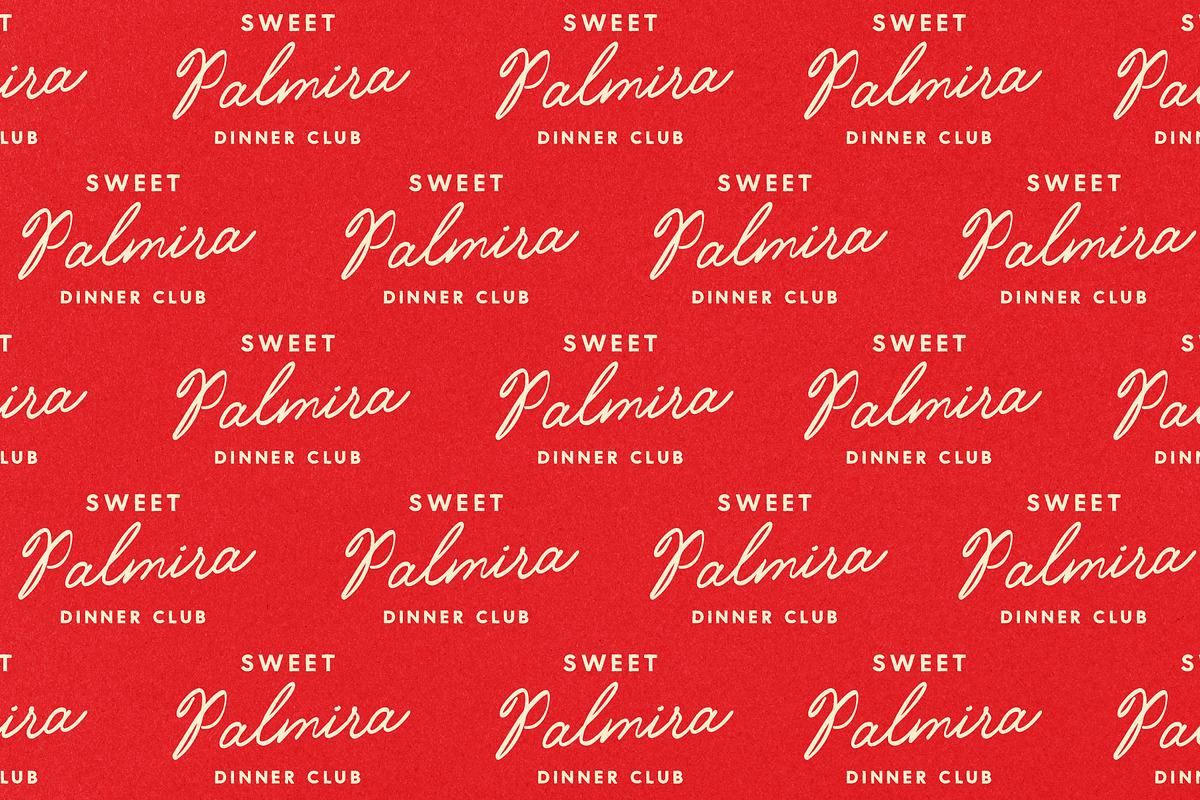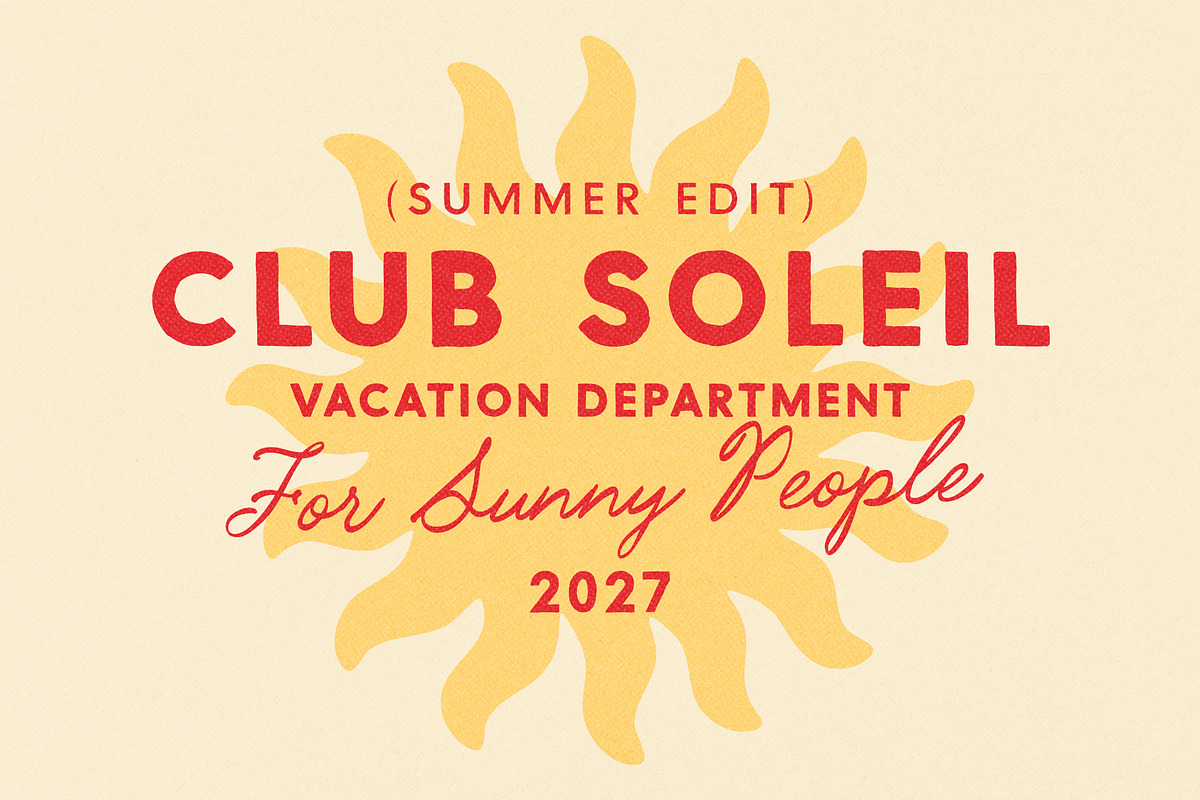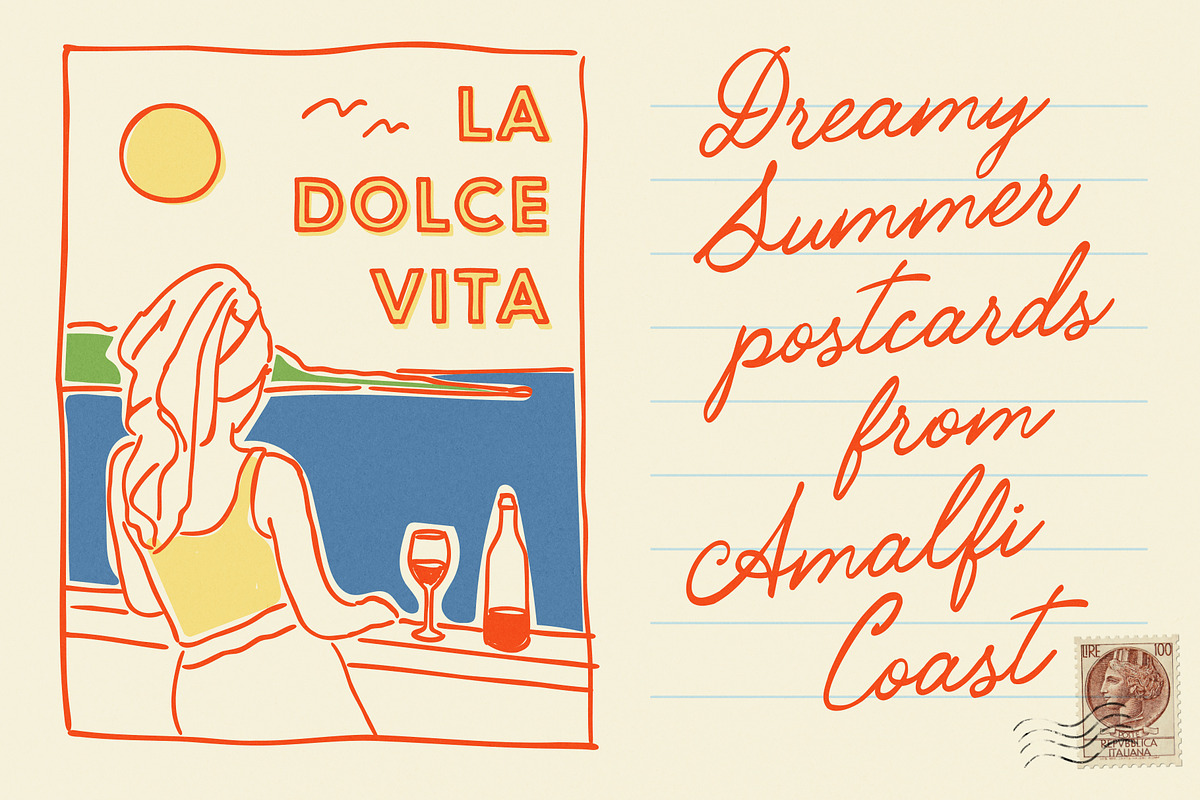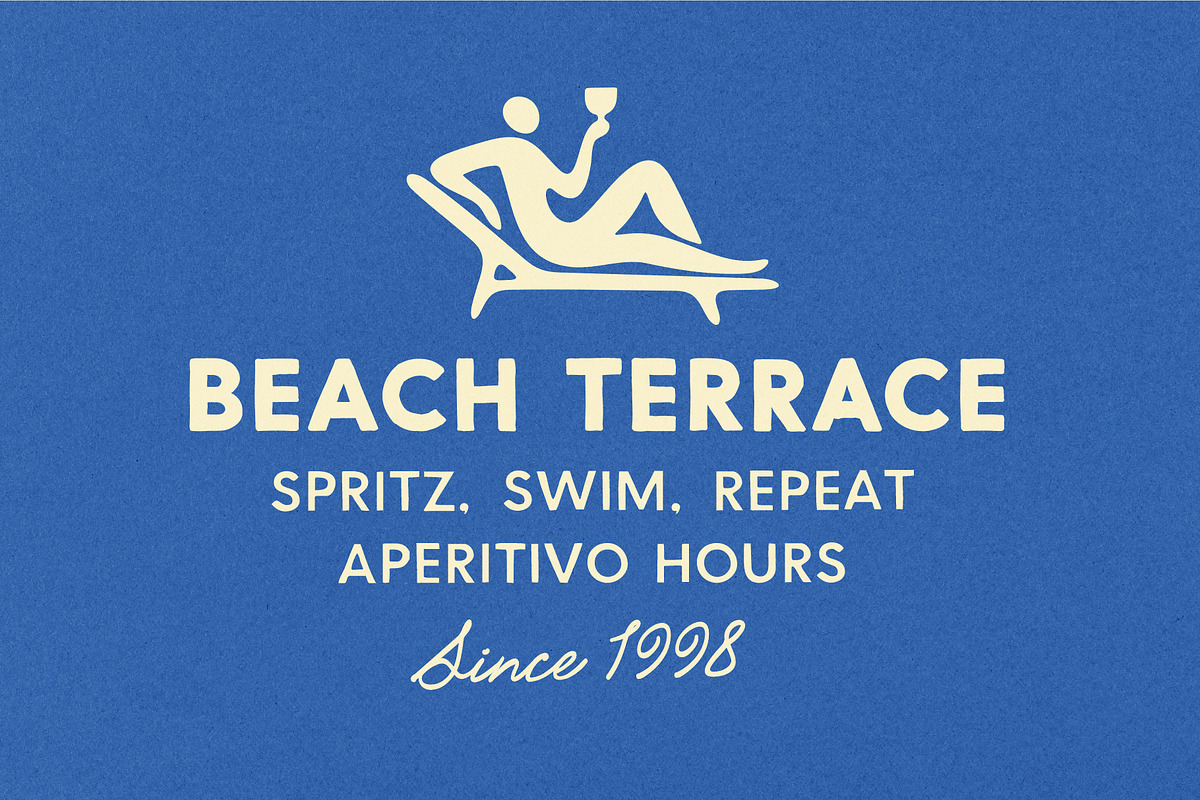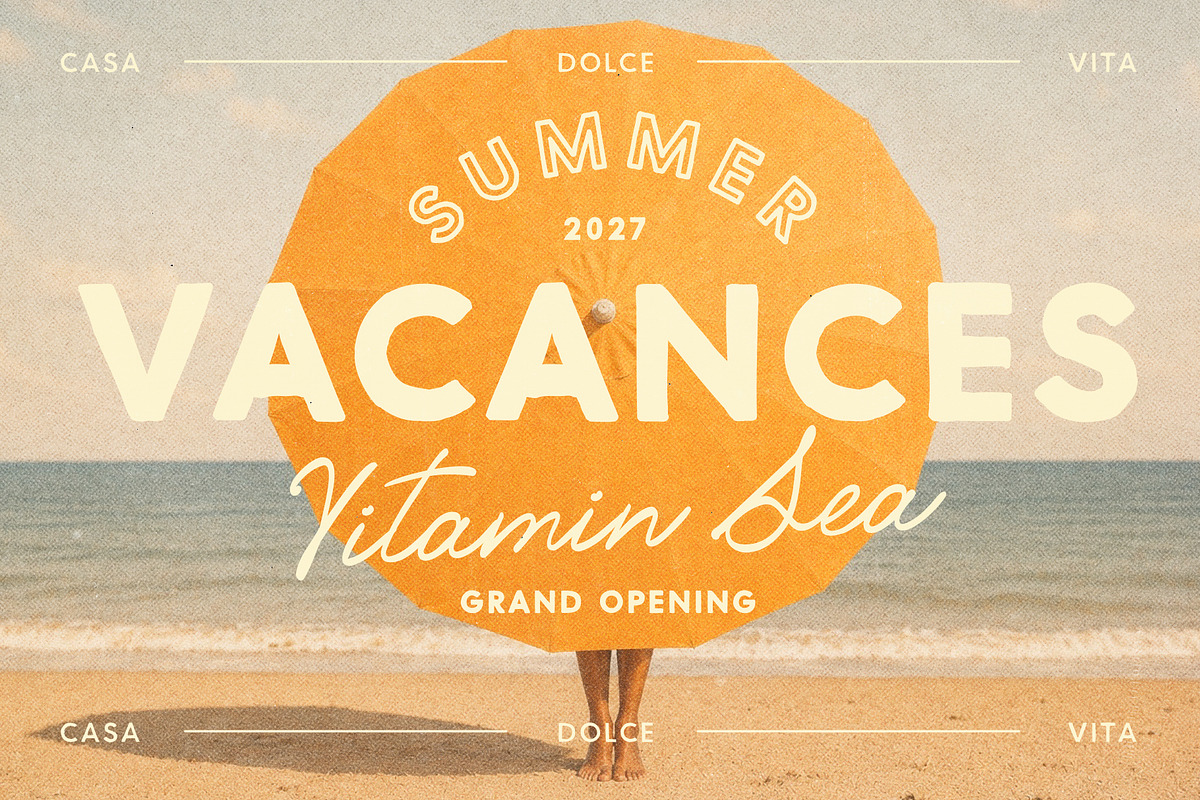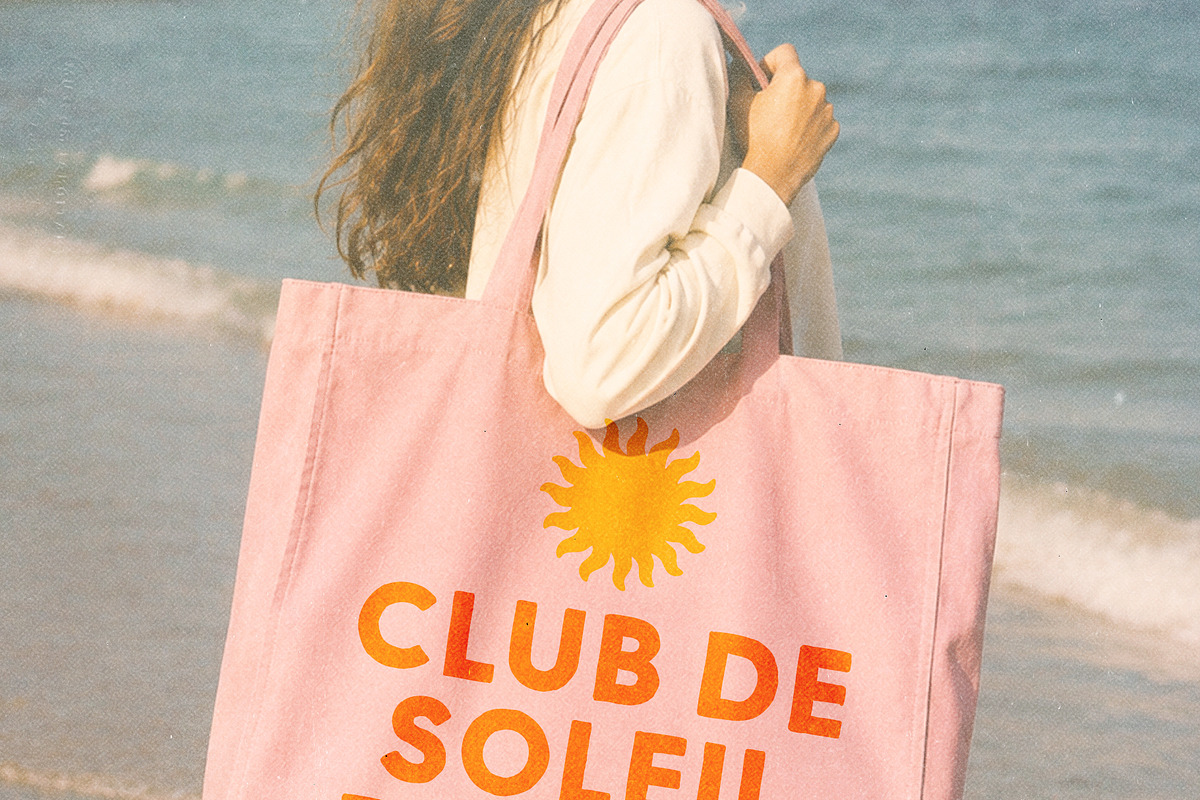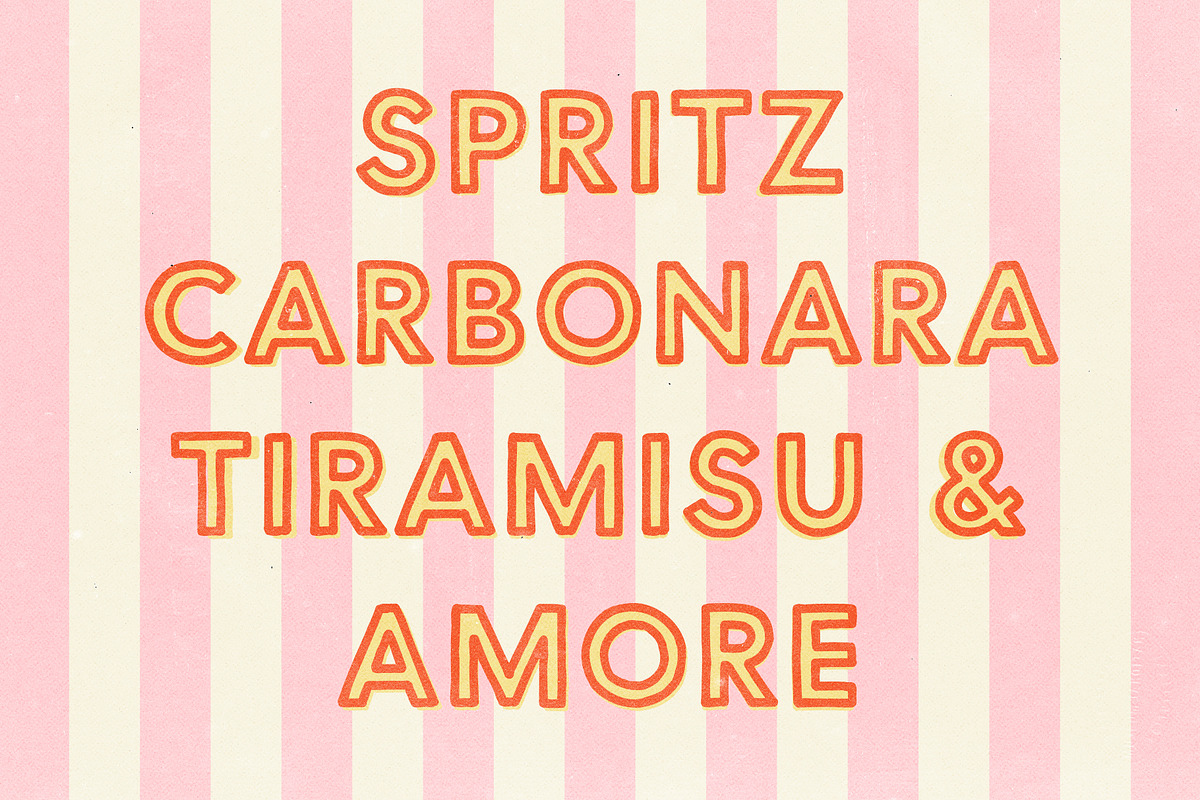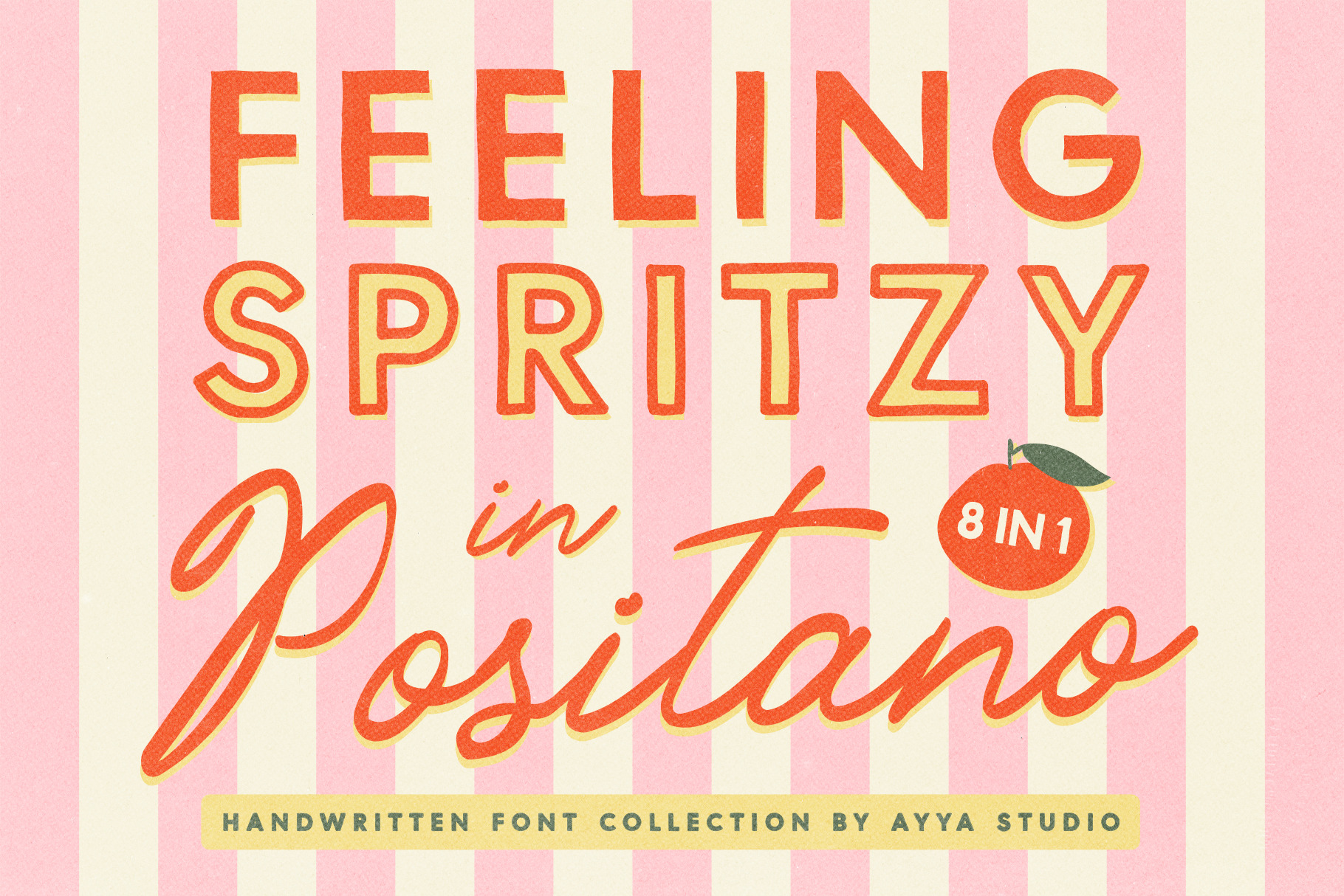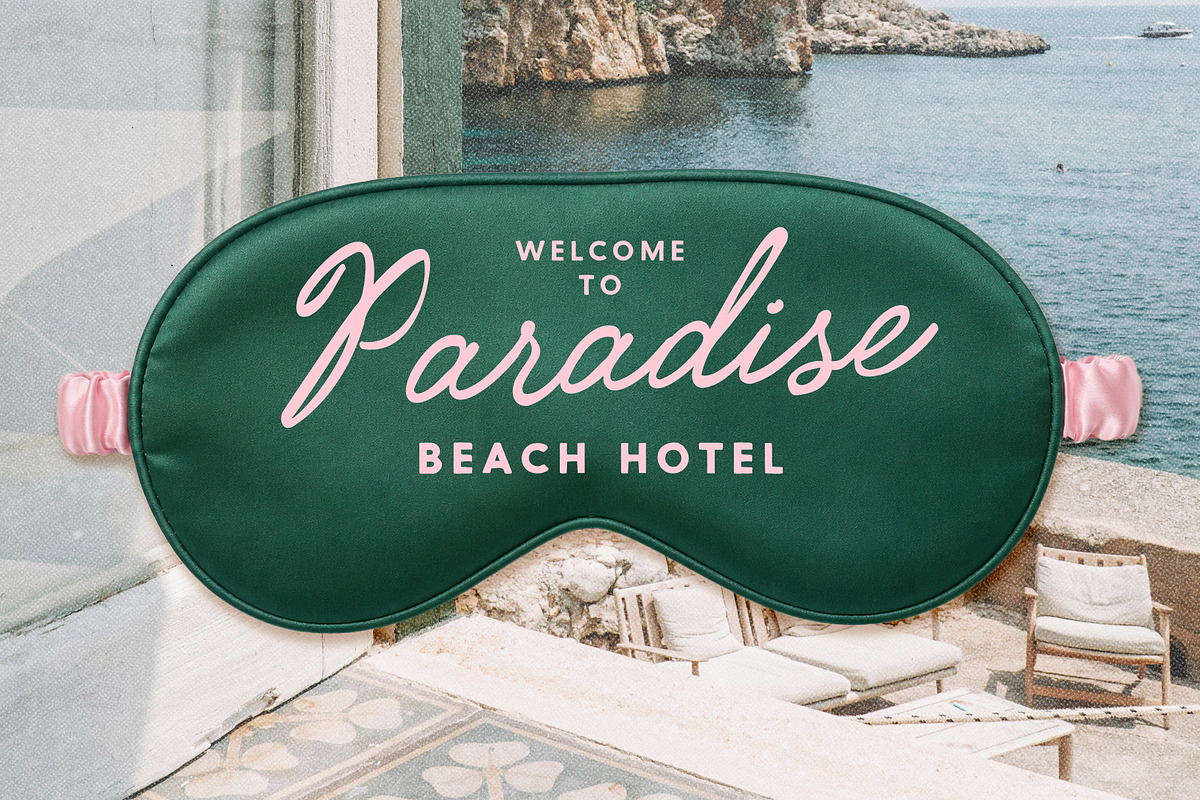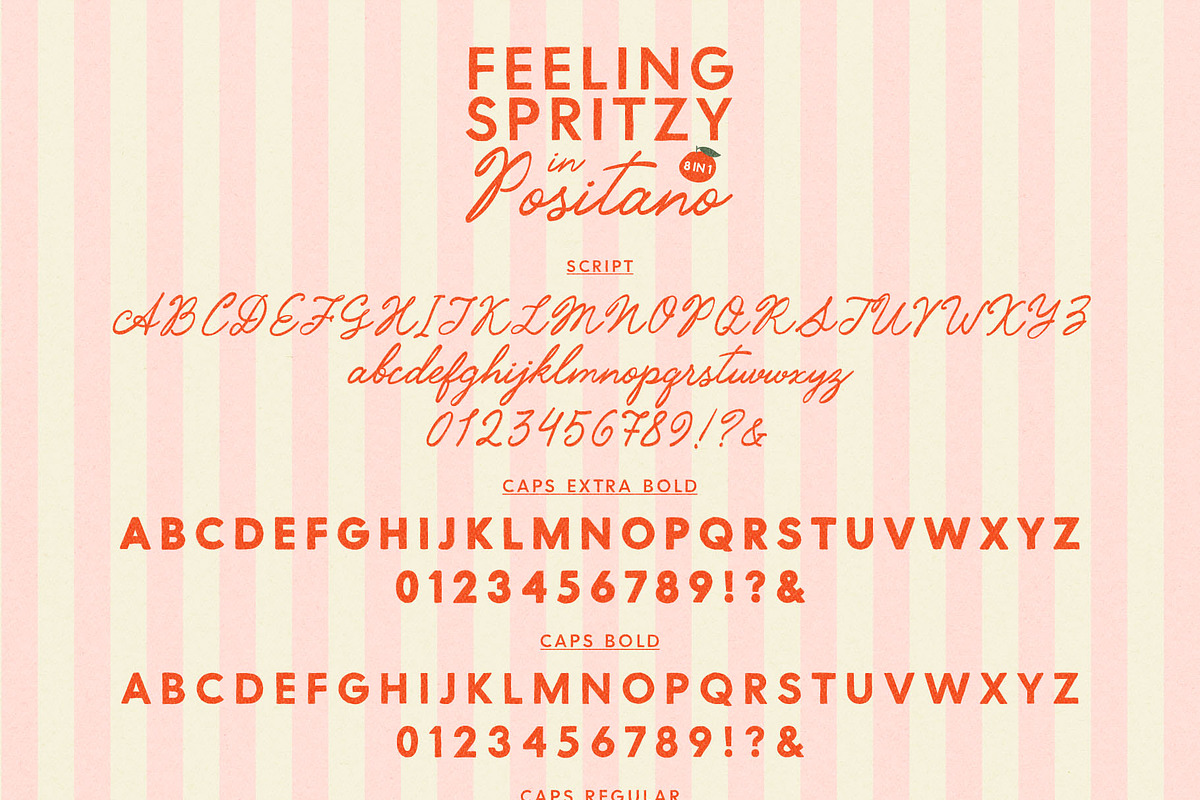
Italian Riviera Coastal Font Family
Feeling Spritzy in Positano is a font family inspired by long Italian summers, vintage beach signage, striped umbrellas, little gelato shops, handwritten menus, and old coastal posters fading under the sun.
The collection includes 8 fonts created for the upcoming summer season and made to feel relaxed, sunny, nostalgic, and a little imperfect in the best way. The inspiration came from the Italian Riviera, small seaside cafés, old packaging, beach clubs, painted shop signs, summer magazines, and that warm feeling of being somewhere near the sea with nowhere to rush.
Perfect for branding and logotypes, retro packaging, vintage editorial layouts, summer posters, wedding invitations, handwritten menus, cafés, boutique hotels, beach clubs, restaurants, olive oil or wine labels, apparel design, postcards, magazines, social media graphics, and summer campaigns.
These fonts were made to be used together naturally, like pieces from the same little world. You can use them for a full branding project or just for one poster or logo that needs a bit more personality and warmth without looking too polished or generic.
Feeling Spritzy in Positano was made for projects that want to feel sunny, human, nostalgic, and full of summer energy.